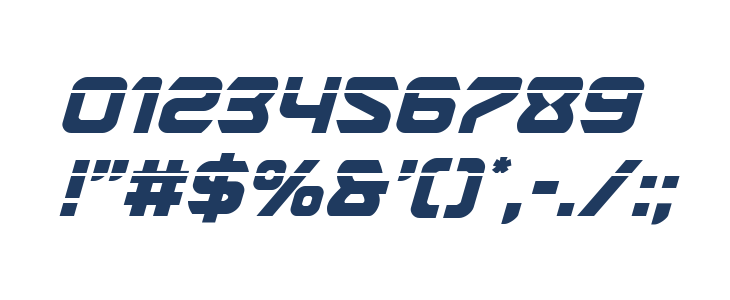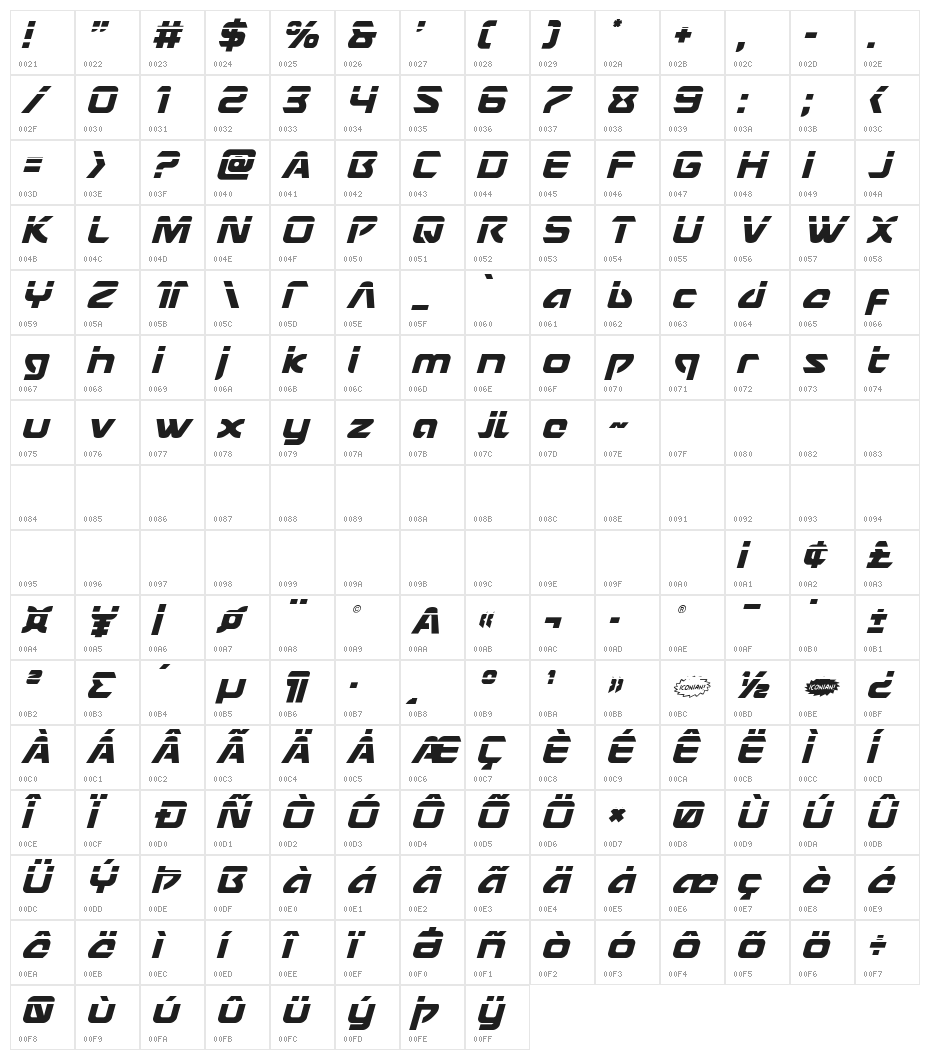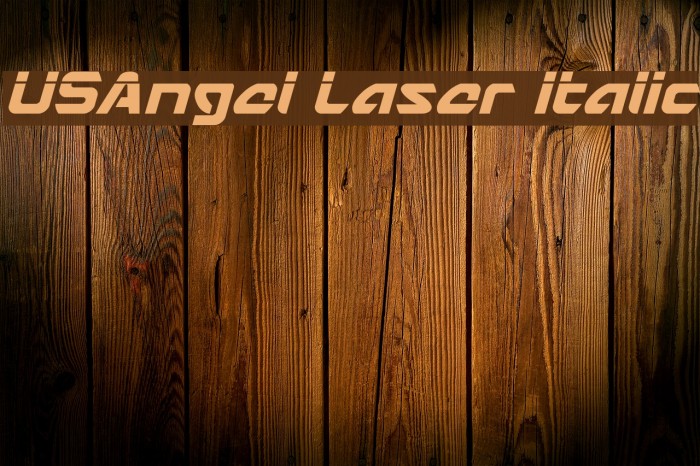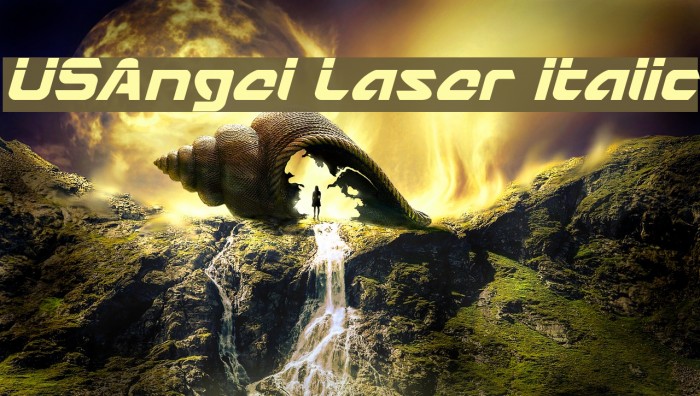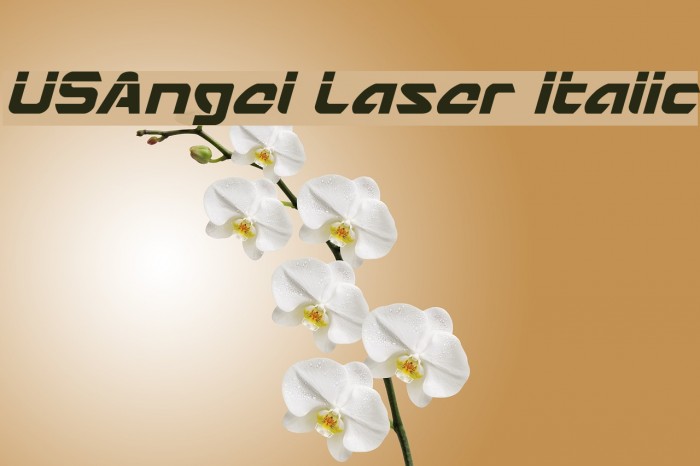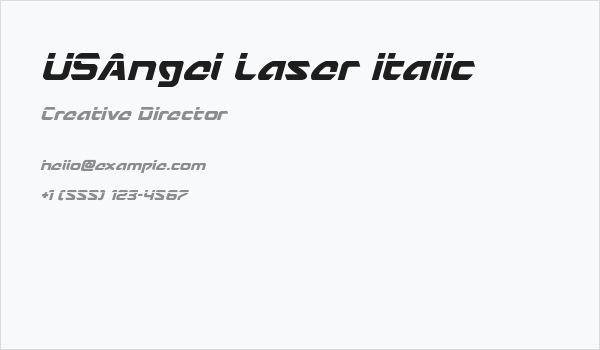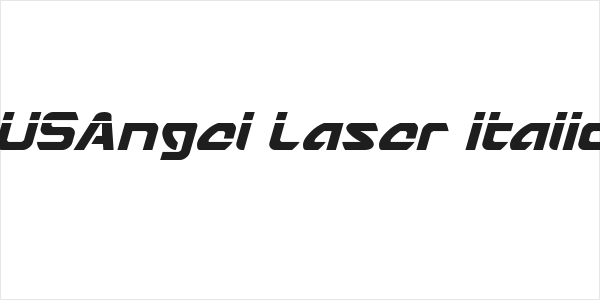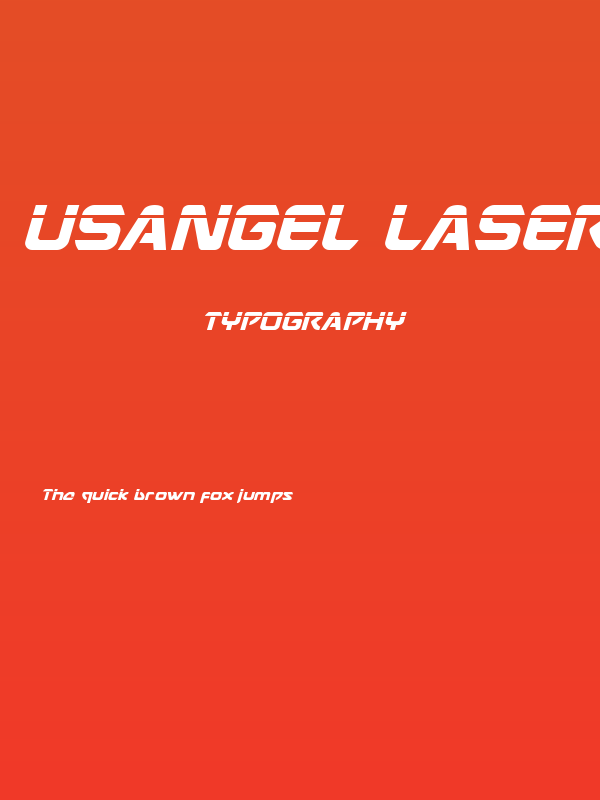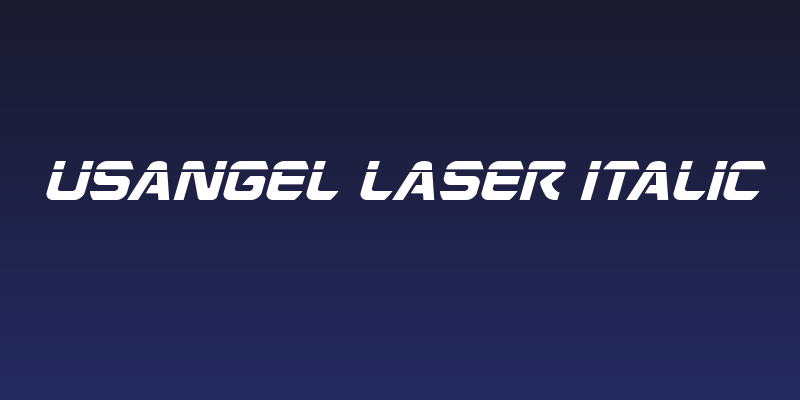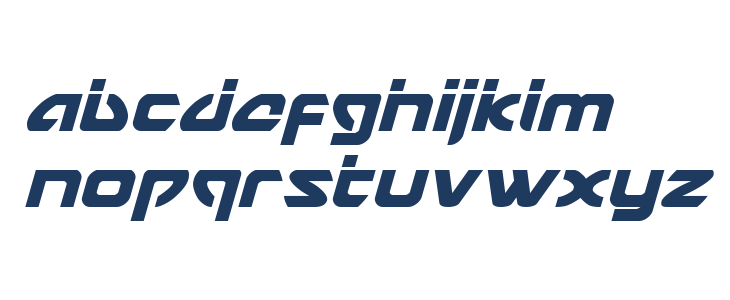
USAngel Laser Italic Font
USAngel Laser Italic Description
This font features a bold and dynamic style with a futuristic flair. The characters are italicized, giving them a sense of motion and speed. The strokes are thick and consistent, providing a strong visual impact. The design incorporates sharp angles and clean lines, contributing to its modern and sleek appearance. The uppercase and lowercase letters maintain a uniform style, while the numerals and special characters are designed to complement the overall aesthetic. This font is well-suited for projects that require a bold and contemporary look.